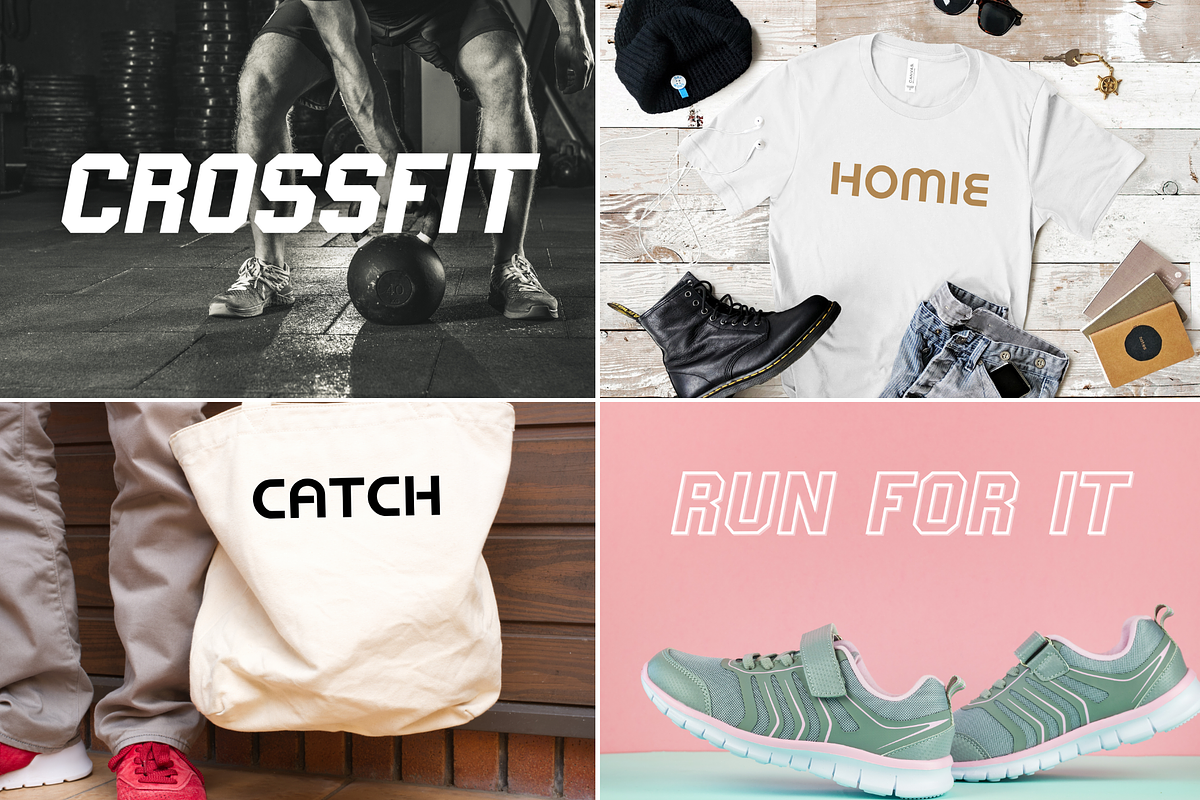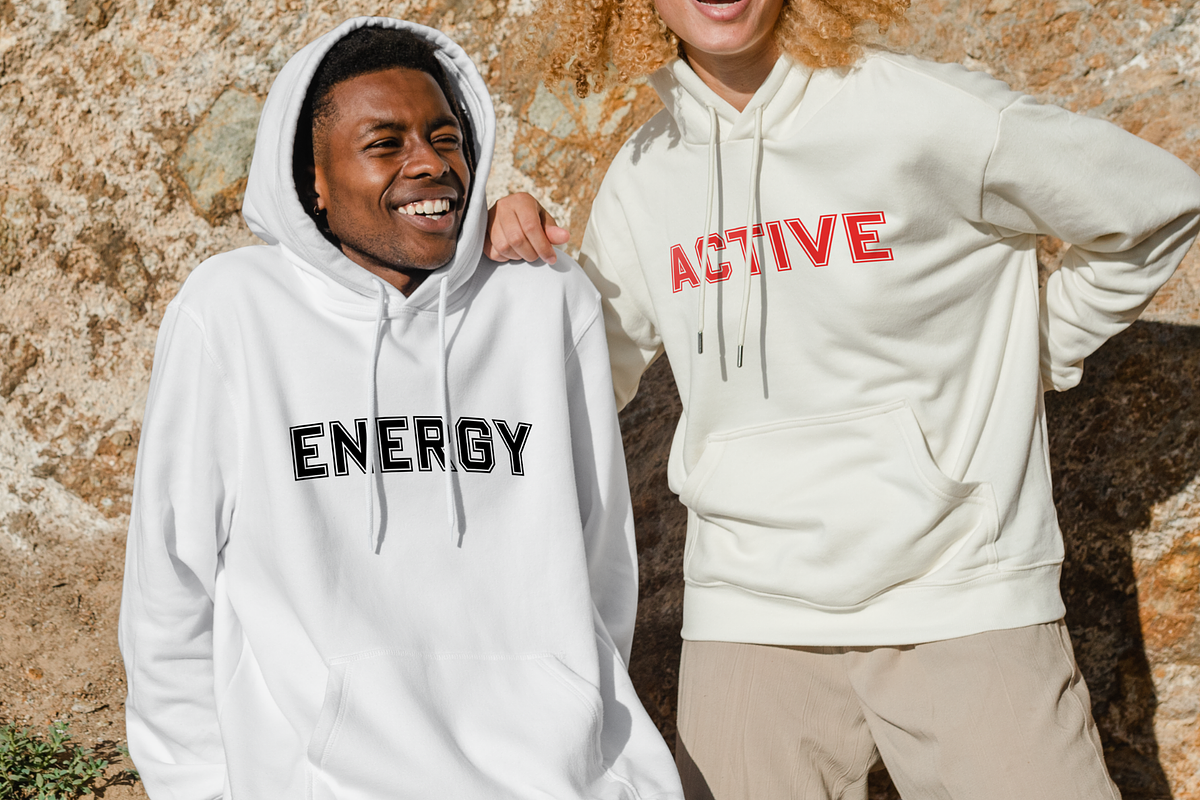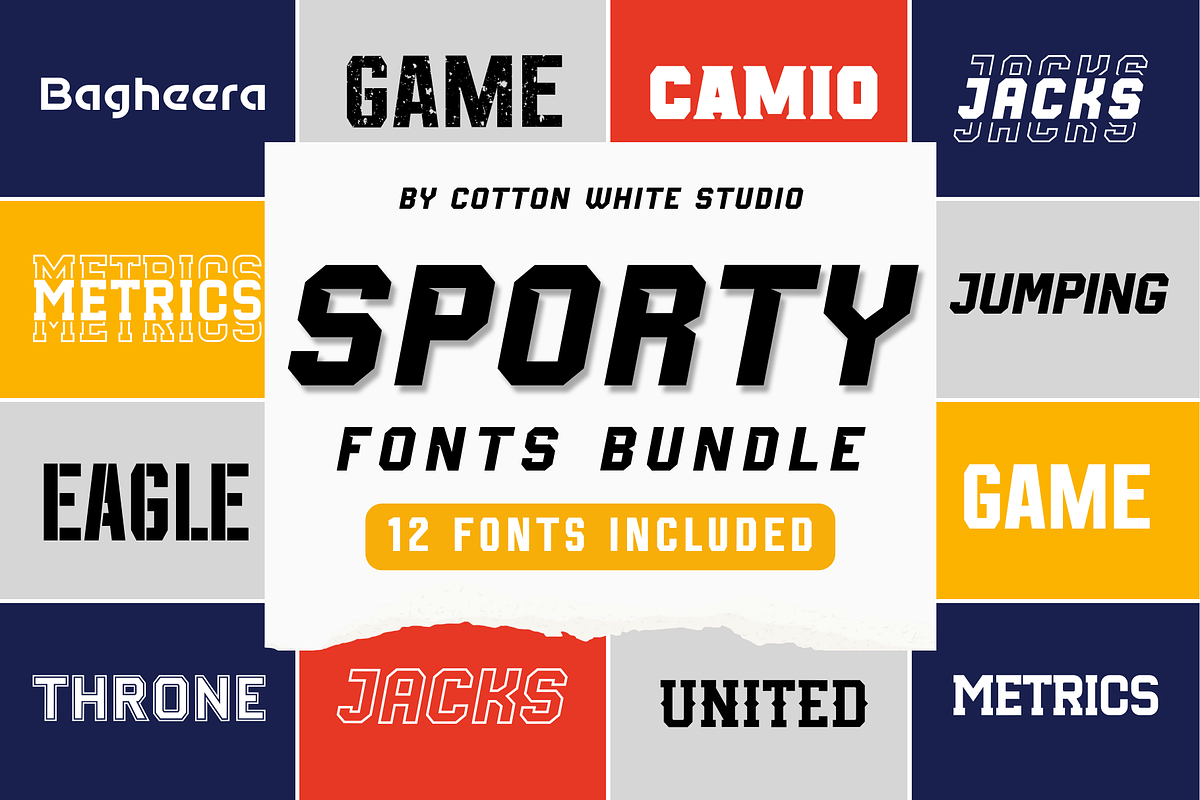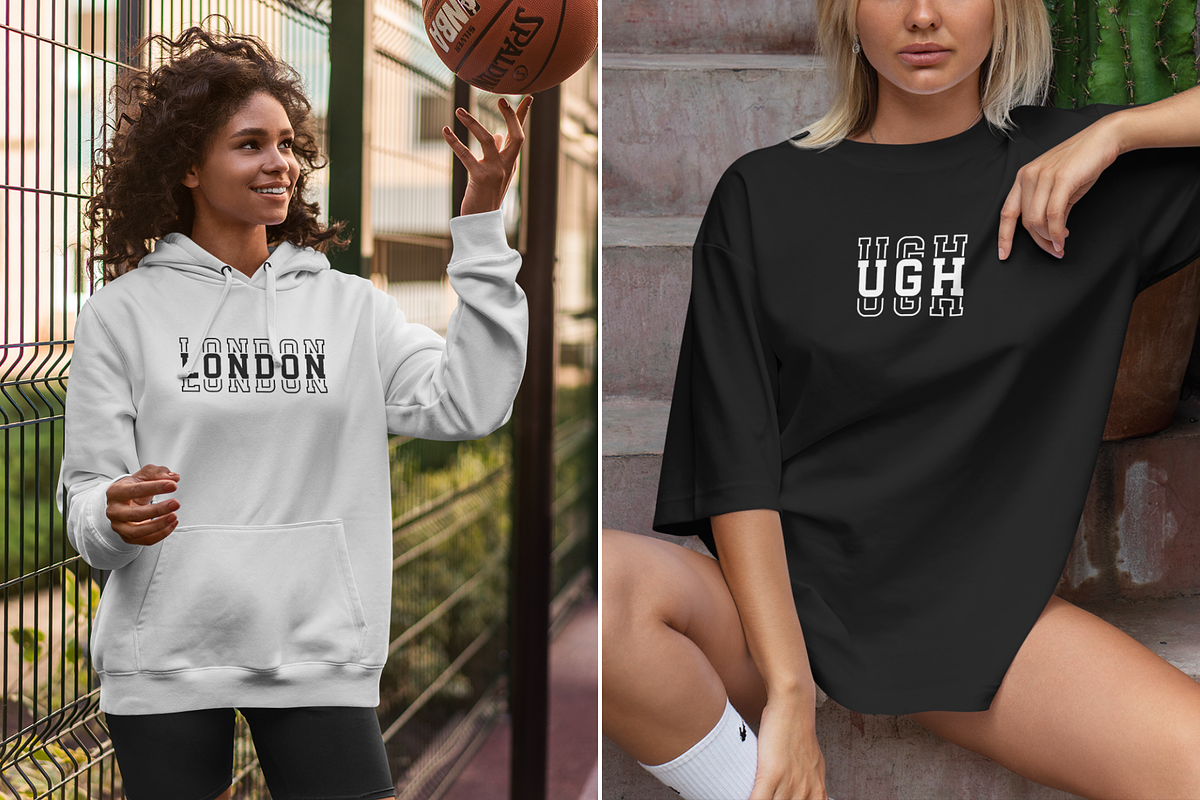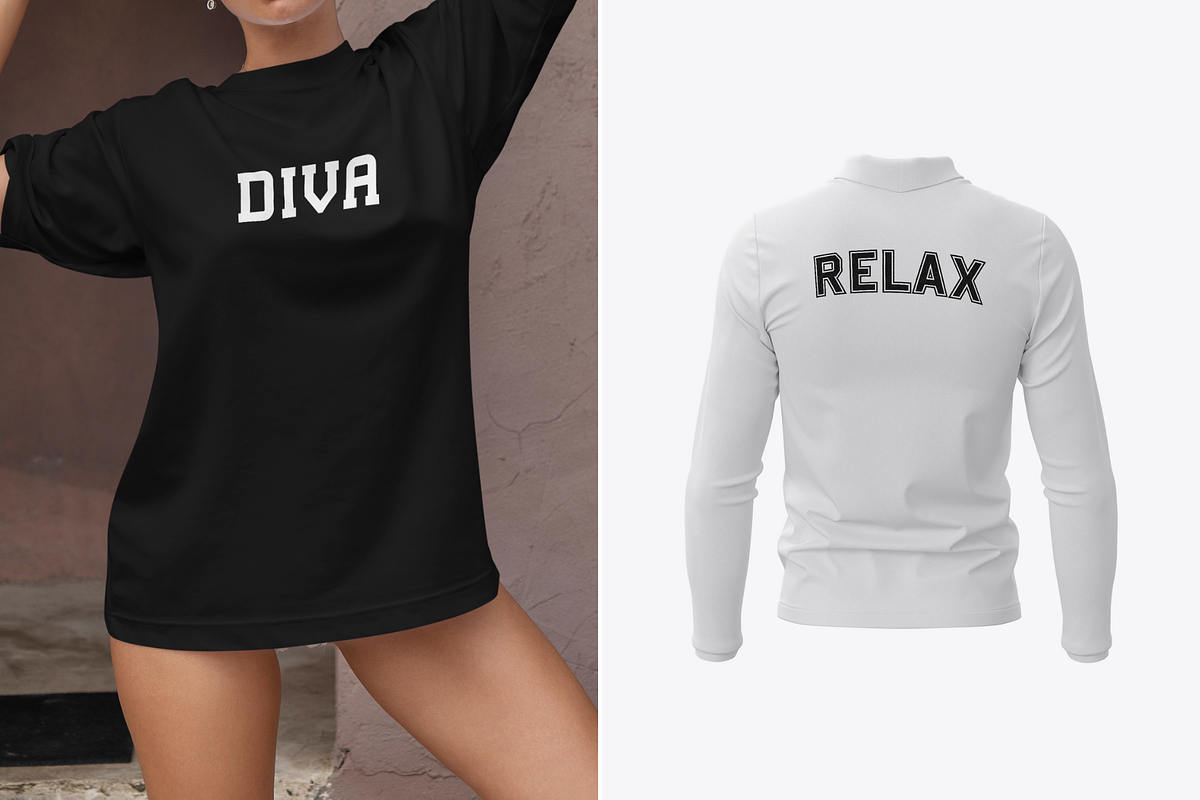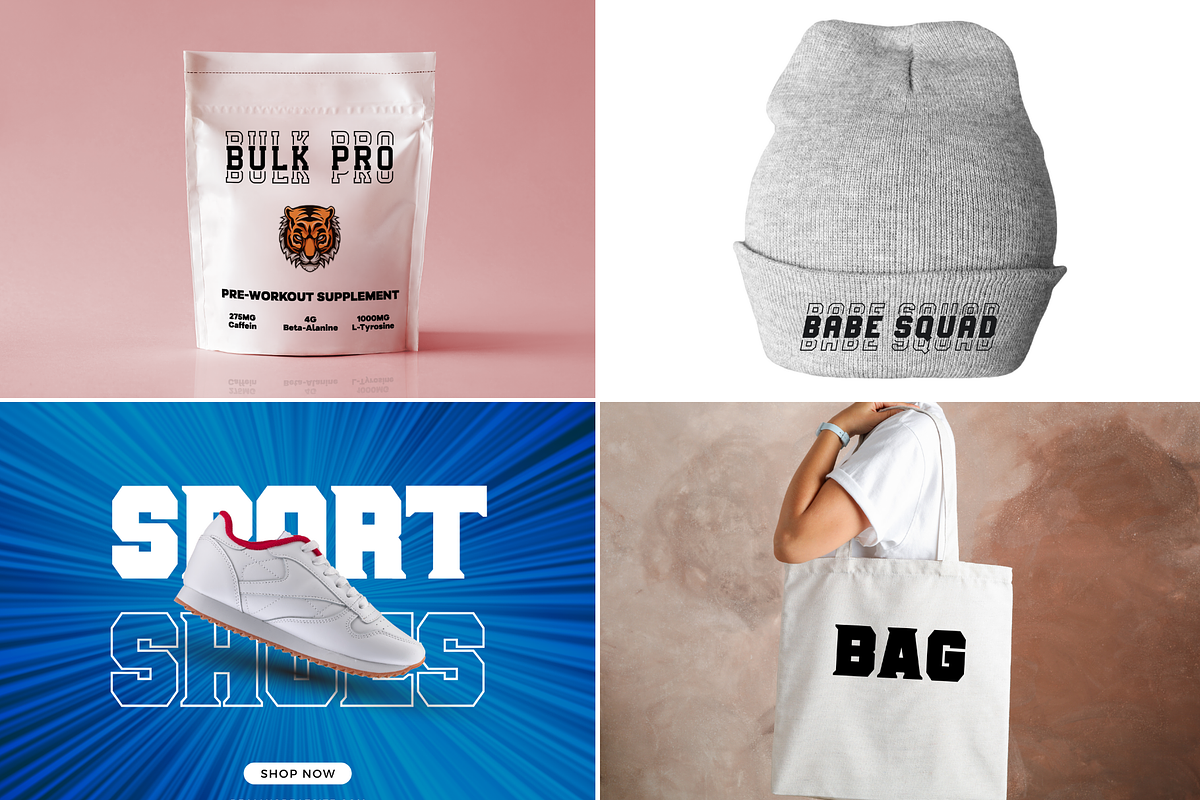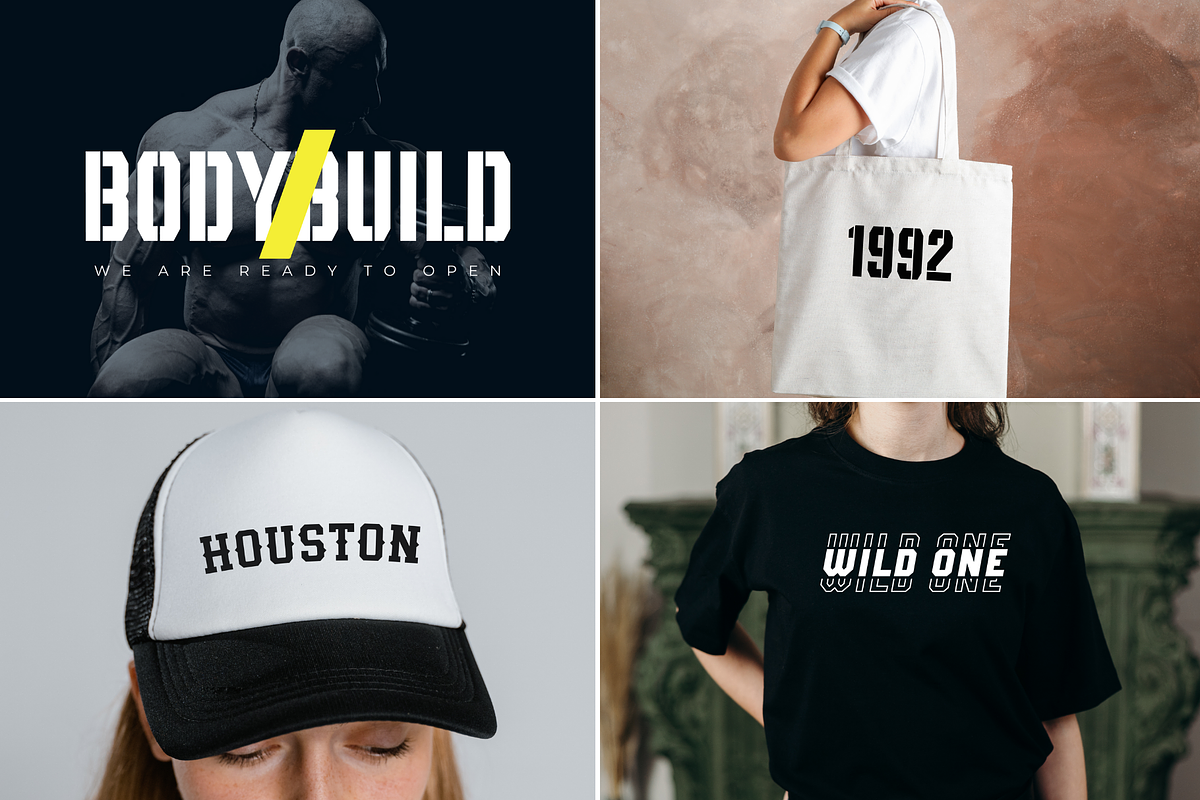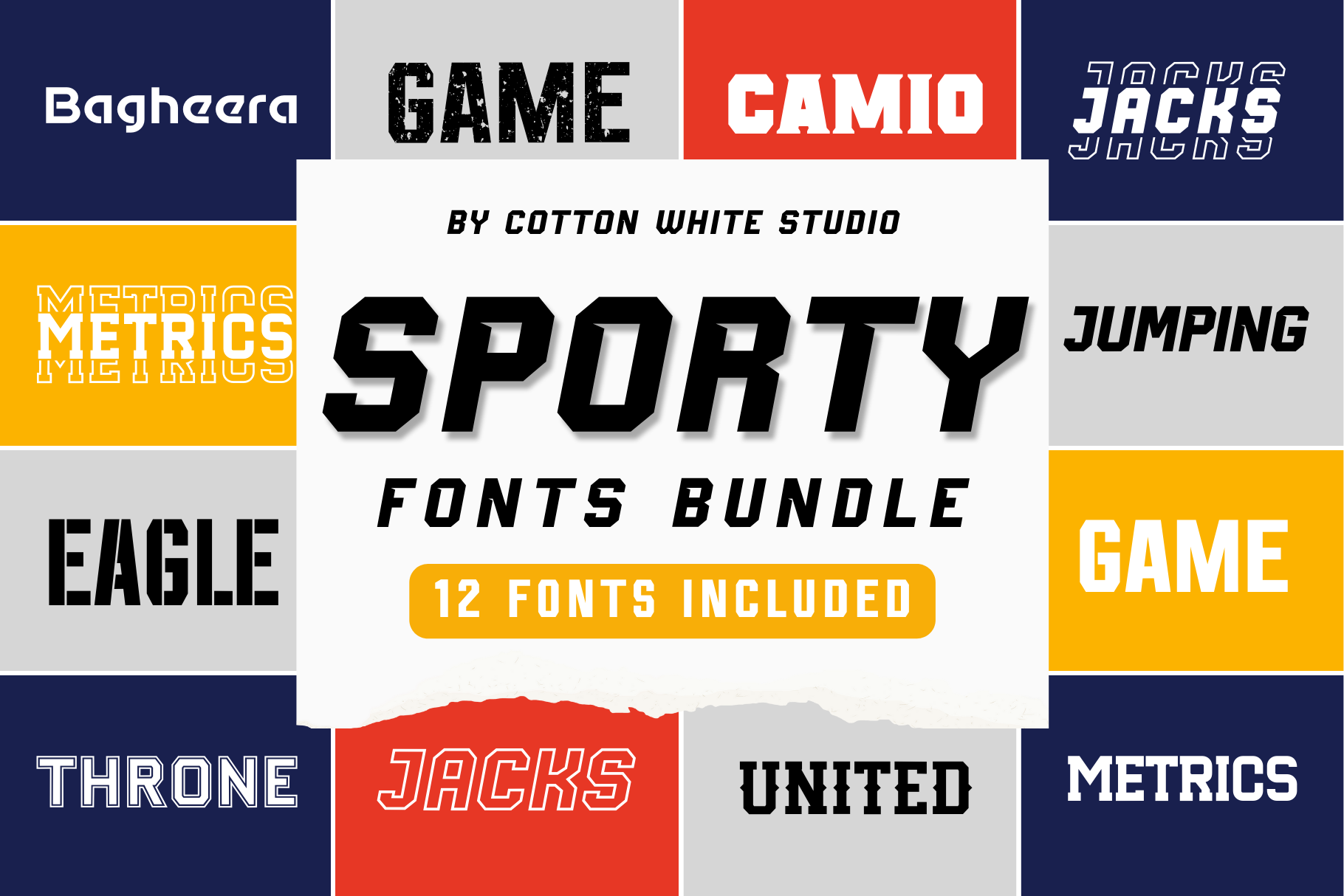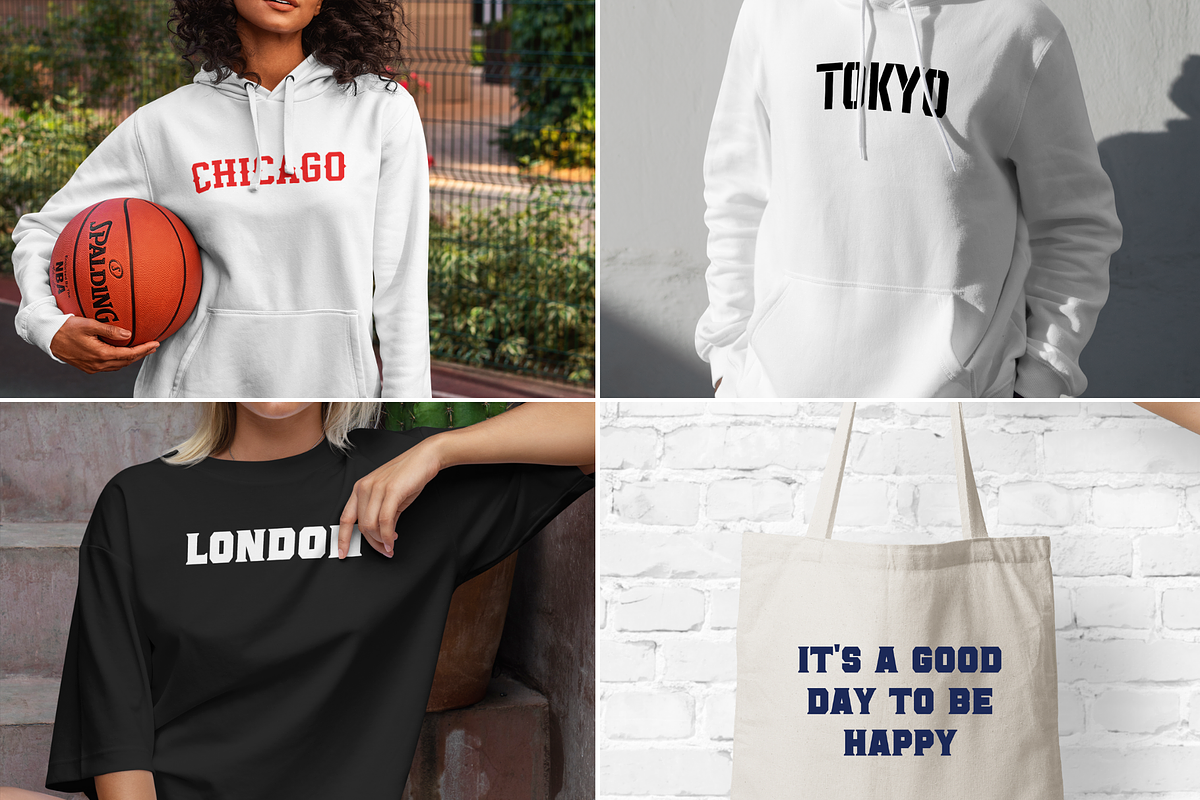
The Sporty Font Bundle
Introducing our newest font bundle - a collection of 12 sporty fonts perfect for prints, t-shirts, mugs, social media, advertising, headlines and much more.
Characters: A B C D E F G H I J K L M N O P Q R S T U V W X Y Z 0 1 2 3 4 5 6 7 8 9 . , : ; ! ? ' " ‘ ’ “ ” @ _ & # % * + - × ÷ = ~ / ( ) { } [ ] $ ¢ € £ ¥ © ® ™